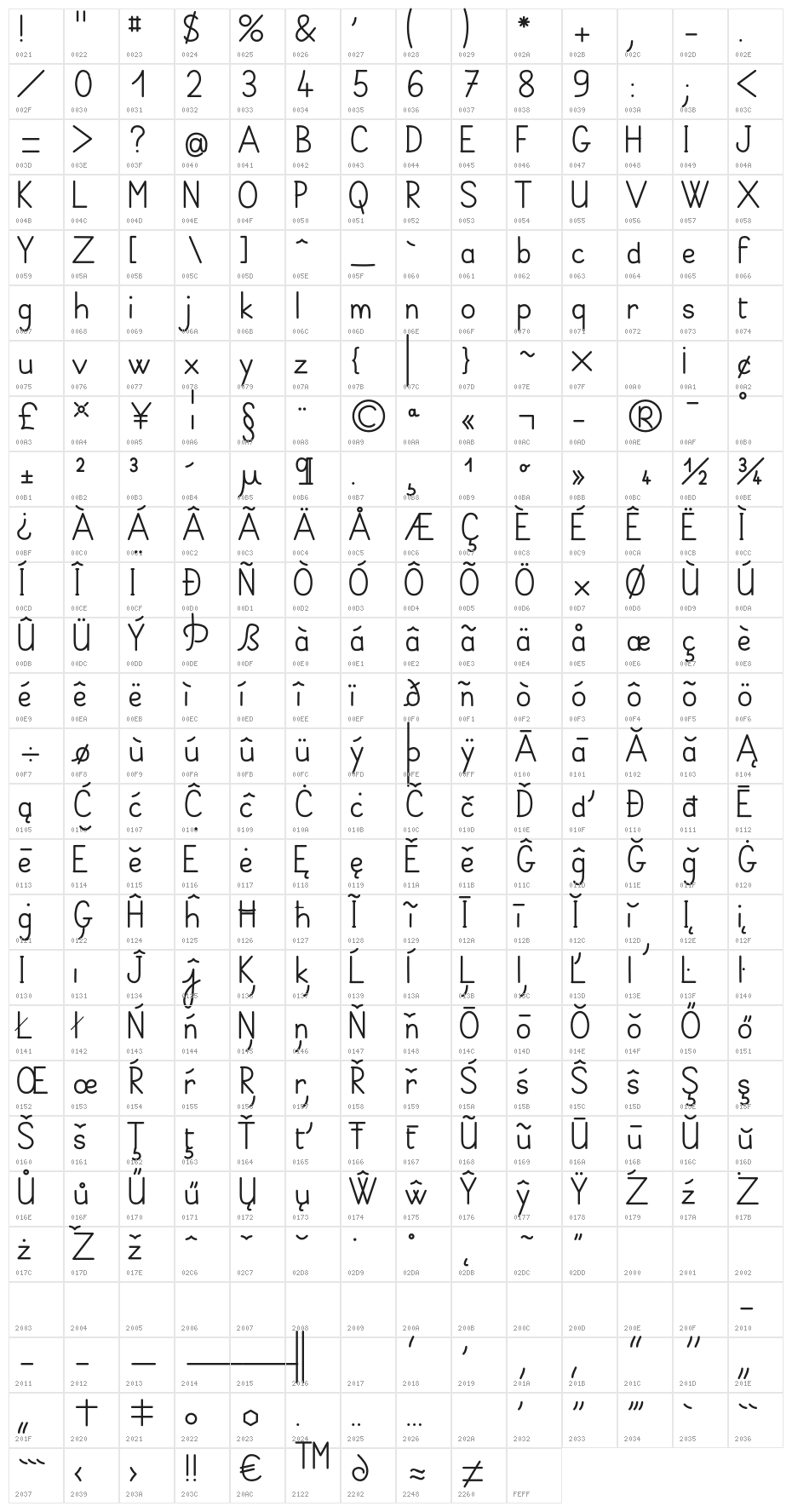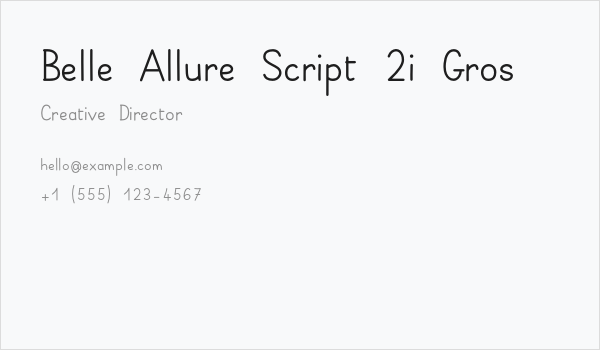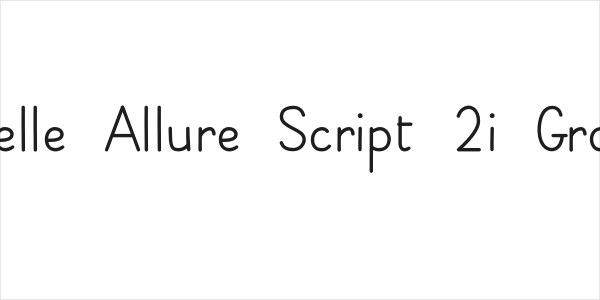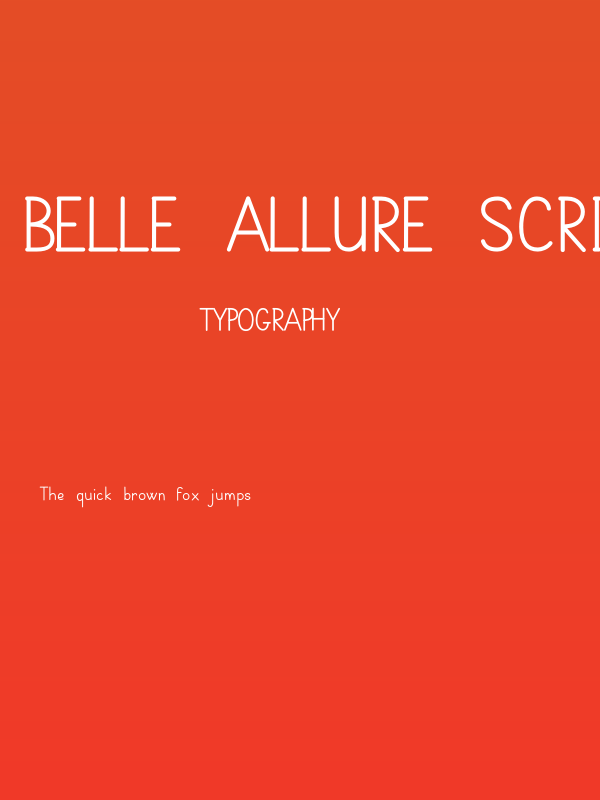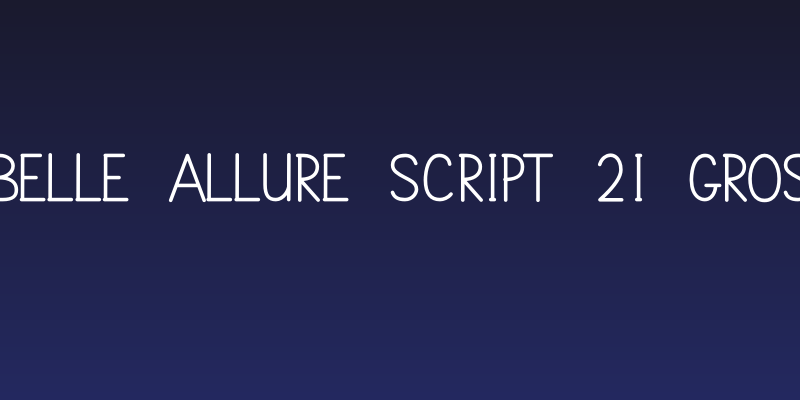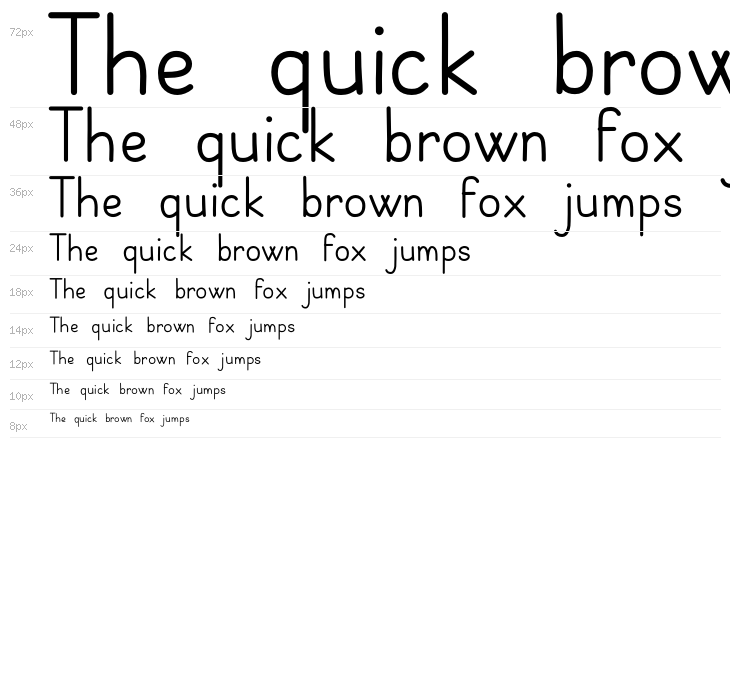
Belle Allure Script 2i Gros Font
Belle Allure Script 2i Gros Description
This font features a playful and casual style with a handwritten appearance. The characters are rounded and smooth, giving a friendly and approachable feel. The uppercase letters are slightly taller than the lowercase, maintaining a consistent width throughout. Numbers and special characters are designed to match the overall aesthetic, ensuring a cohesive look. The font's simplicity and clarity make it versatile for various design projects, while its unique charm adds a personal touch.
| Use Case | Headlines, Informal text, Branding |
| Proposed Projects | Ideal for greeting cards, children's books, casual branding, and social media graphics. |